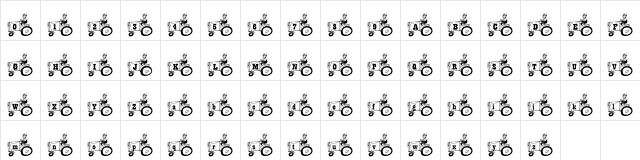
Dad's Tractor Regular
Design Context for Dad's Tractor Typeface
Dad's Tractor is a composed and adaptable typeface that performs quietly and consistently across a wide range of design contexts.